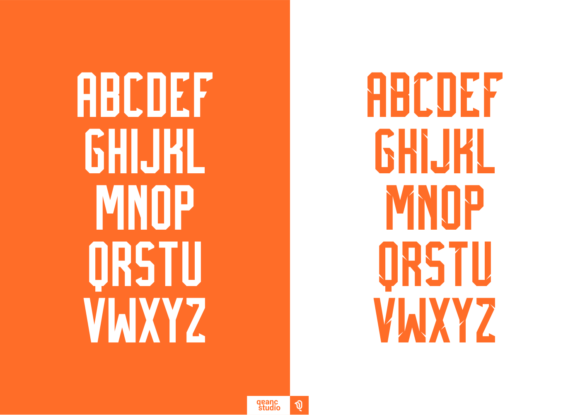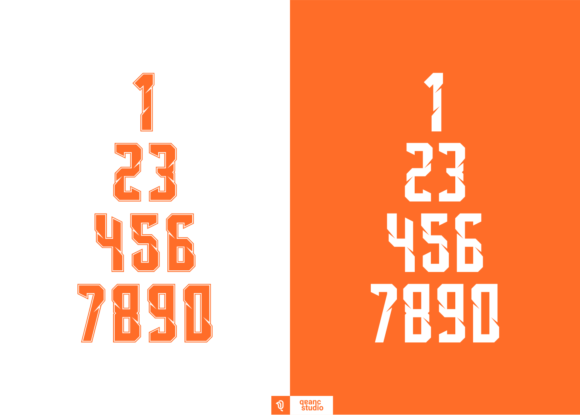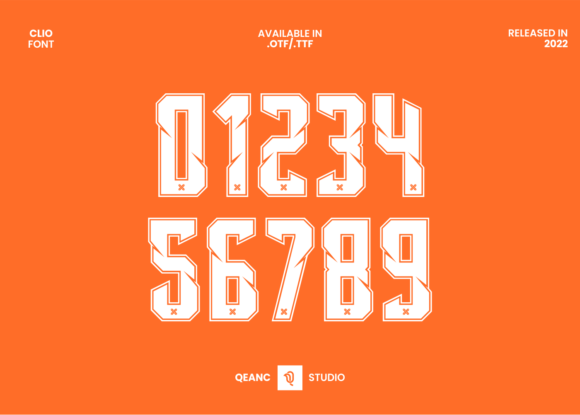
Clio Font: A Bold Display Font for Sports Logos & Creative Projects
About the Clio Font
Experience the unique personality of Clio Font, a font designed for impact. Clio is an awesome and cool display font inspired by football and sport. It is the perfect font for any sports or racing-themed projects, such as logos, posters, or t-shirts. Add this font to your creative ideas and notice how it will make them stand out!
Clio’s bold, energetic style makes it ideal for headlines, logos, and short, impactful text on posters or packaging. Its strong forms work well for sportswear branding and projects emphasizing speed and dynamism. However, its condensed letterforms and high x-height make it less suitable for body text or UI elements requiring high readability over long stretches.
Pairing Clio with a clean sans-serif like Open Sans for body copy creates a strong contrast and enhances readability. For a more refined look, consider pairing it with a classic serif like Garamond for a touch of elegance, balancing Clio’s athletic energy with a sophisticated feel. A geometric sans-serif such as Futura could also provide a modern, balanced contrast.
Clio projects a powerful, athletic personality. It’s best suited to brands seeking to convey strength, speed, or a sense of competition. Avoid using it where a more subtle or refined aesthetic is required.